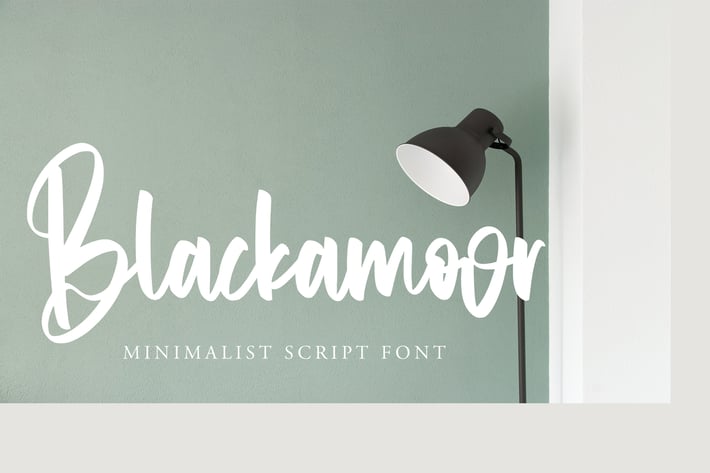
Blackamoor - Minimalist Script Font
Blackamoor - Minimalist Script Font that has a distinctive character that is very thick and elegant to use
Blackamoor is a relaxed and flowing Handwritten Font. Incredibly versatile, this font fits a wide pool of designs, elevating them to the highest levels. Add this font to your favorite creative ideas and notice how it makes them come alive!